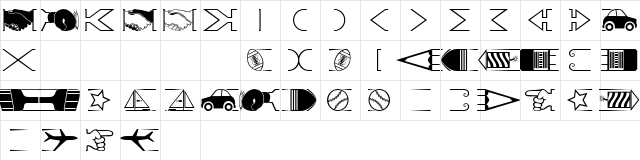
AC2-BannerEnds Regular
Design Context for AC2-BannerEnds Typeface
AC2-BannerEnds is a composed and adaptable typeface that performs quietly and consistently across a wide range of design contexts.